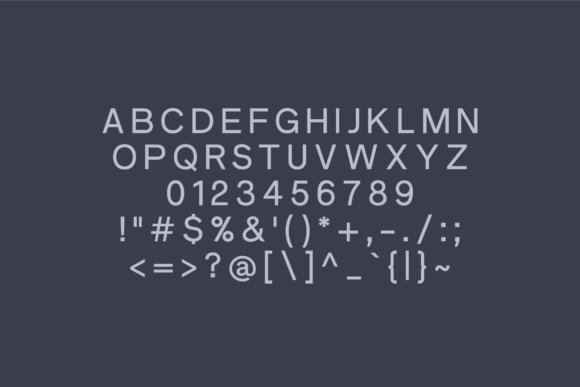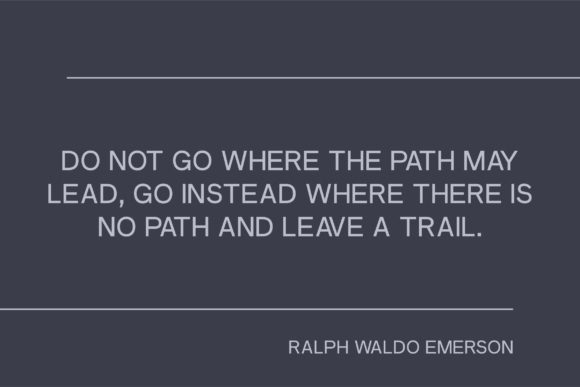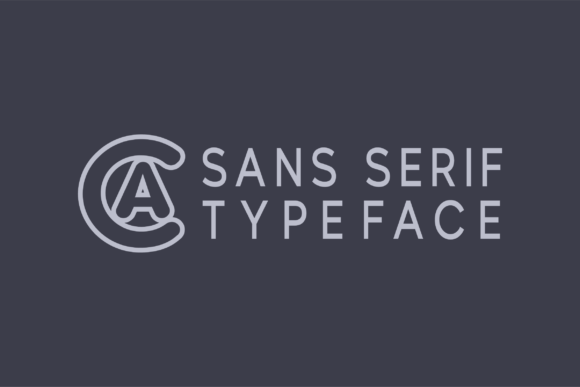
Introducing Aristeus: The Ultimate Chic Contemporary Sans Serif Font
In the world of typography, a font can make all the difference in elevating a design from ordinary to extraordinary. For designers and crafters seeking a stylish and versatile sans serif font, look no further than Aristeus. This modern font is designed to blend contemporary aesthetics with a touch of class, making it an ideal choice for a wide range of applications.
What is Aristeus Font?
Aristeus is a chic, contemporary sans serif font that exudes sophistication and elegance. Comprising uppercase letters, numeric characters from 0-9, and an assortment of punctuation marks and symbols, this font is designed to provide versatility and flexibility. Whether you’re looking to create a stunning logo, a beautiful wedding invitation, or a captivating advertisement, Aristeus is the perfect choice.
Key Features of Aristeus Font
- Modern Aesthetics: Aristeus boasts a sleek and modern design that is sure to turn heads. Its clean lines and minimalist approach make it perfect for designs that require a touch of sophistication.
- Versatility: With its comprehensive character set, Aristeus can be used for a wide range of applications, from logos and branding to wedding invitations and advertisements.
- Elegance: Aristeus adds a touch of class to any design, making it perfect for high-end brands, luxury products, and special occasions.
- Easy to Read: The font’s clear and concise design ensures that it is easy to read, even at small sizes.
Applications of Aristeus Font
Aristeus is an incredibly versatile font that can be used in a variety of applications, including:
- Logo Design: Aristeus is perfect for creating stunning logos that require a touch of sophistication and elegance.
- Wedding Invitations: Add a touch of class to your wedding invitations with Aristeus, making them truly unforgettable.
- Quotes and Typography: Use Aristeus to add a touch of elegance to your quotes and typography, making them perfect for social media, blogs, and more.
- Advertisements: Aristeus is perfect for creating eye-catching advertisements that require a modern and sophisticated touch.
- Print Media: Use Aristeus to give your print media a refreshing twist, making it perfect for magazines, brochures, and more.
Why Choose Aristeus Font?
With so many fonts available, why choose Aristeus? Here are just a few reasons:
- Unique Design: Aristeus boasts a unique and modern design that sets it apart from other sans serif fonts.
- High-Quality: Aristeus is a high-quality font that is designed to provide exceptional results, even at large sizes.
- Transformative Power: Aristeus has the power to transform your designs, elevating them from ordinary to extraordinary.
In conclusion, Aristeus is a chic, contemporary sans serif font that is perfect for designers and crafters seeking a stylish and versatile font. With its modern aesthetics, versatility, and elegance, Aristeus is an ideal choice for a wide range of applications. Whether you’re looking to create a stunning logo, a beautiful wedding invitation, or a captivating advertisement, Aristeus is the perfect choice. Experience the transformative power of Aristeus today and take your designs to the next level!